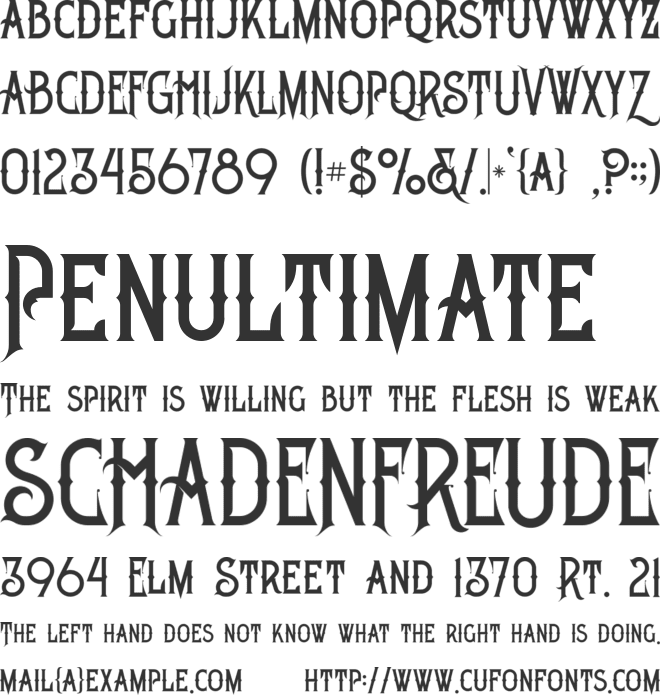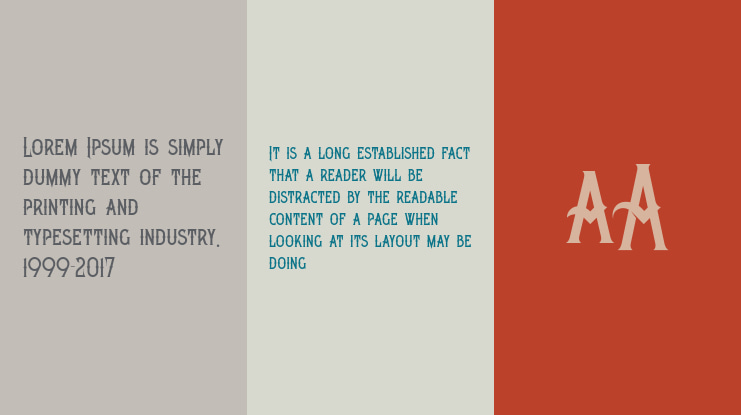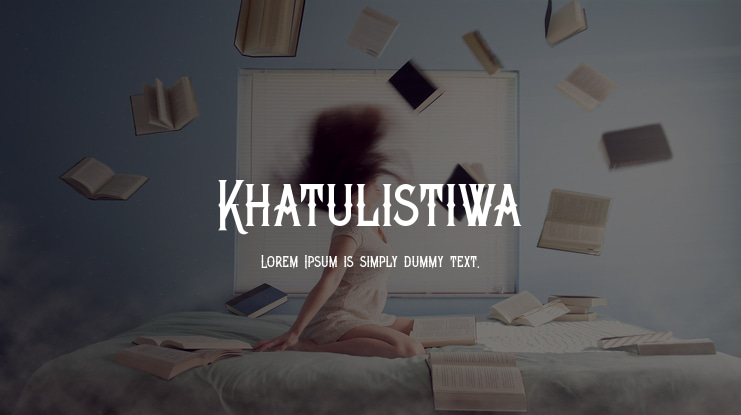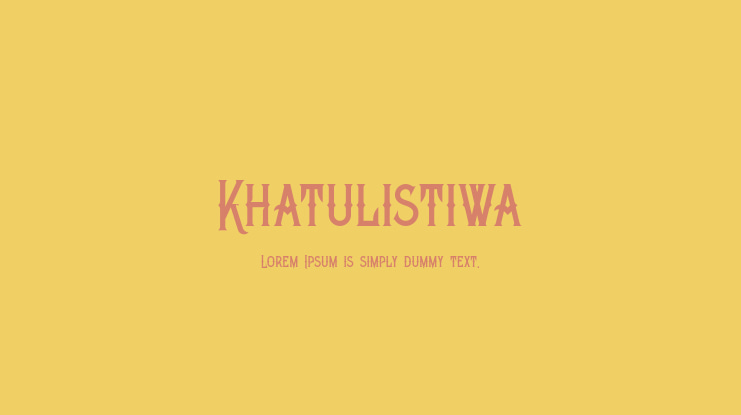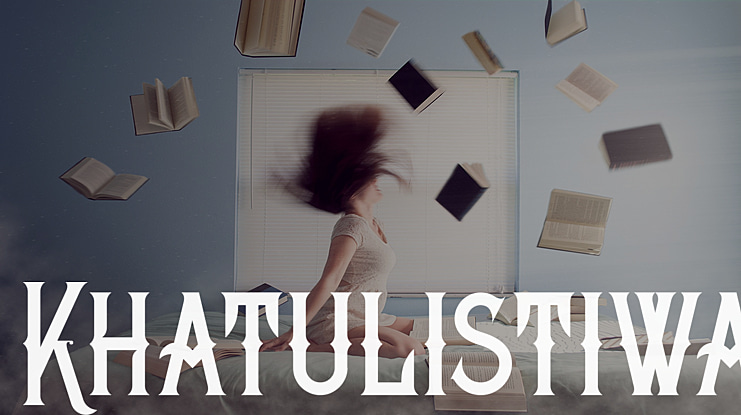
Khatulistiwa Font
Deni Dessastra
This is blackletter typeface created by the-sastra with classic style includes uppercase letters, numerals, a large range of punctuation and multilingual support. Khatulistiwa font is perfect for badges, branding, labels, apparel, headlines, signage, logo, quote, apparel and other creative applications.